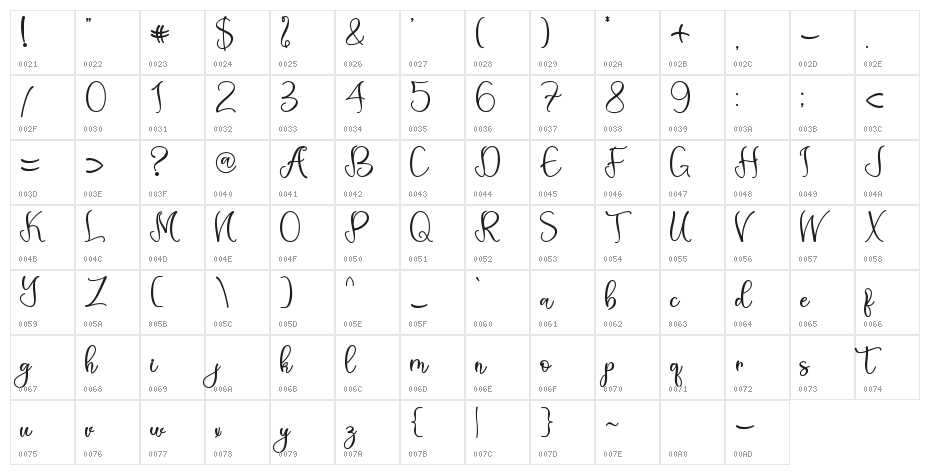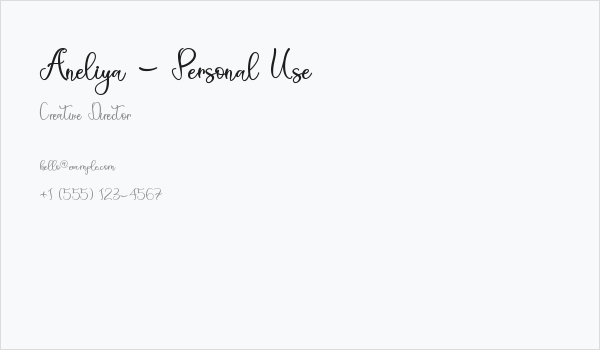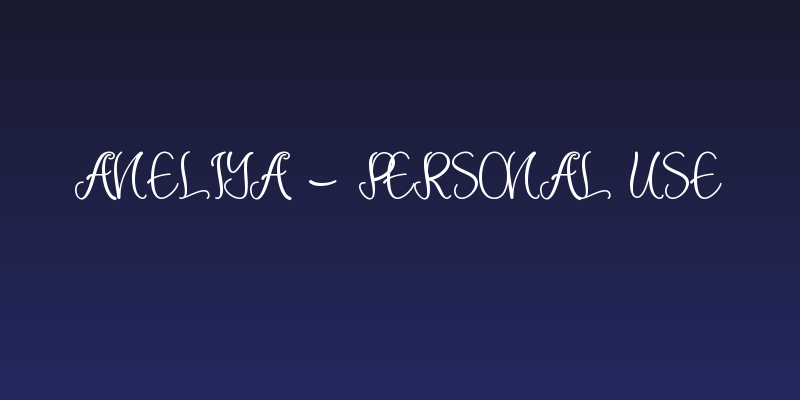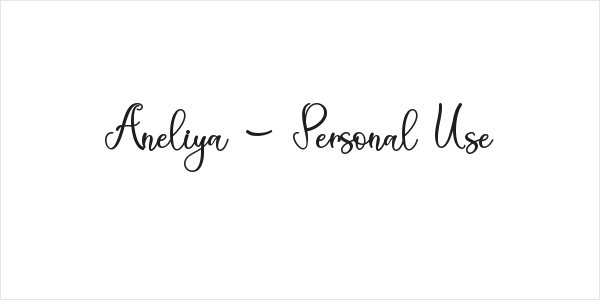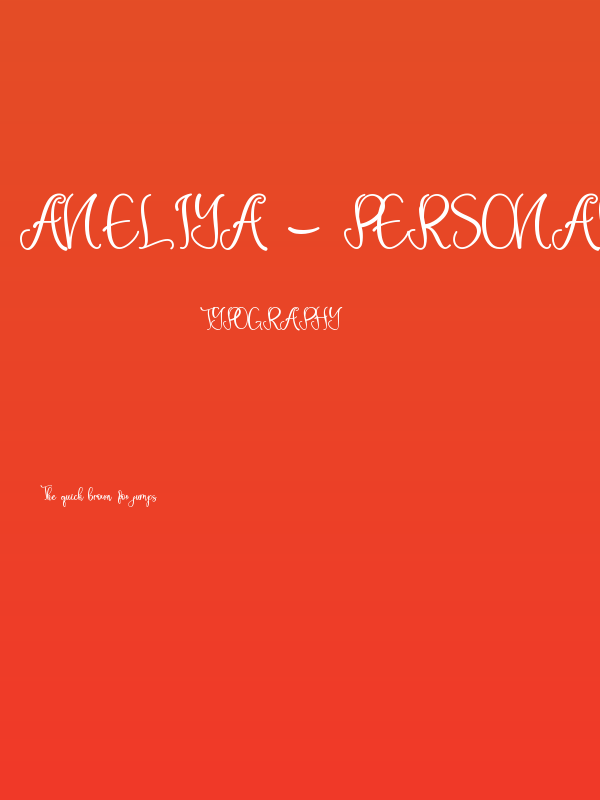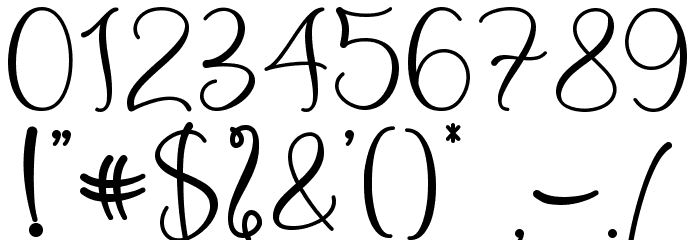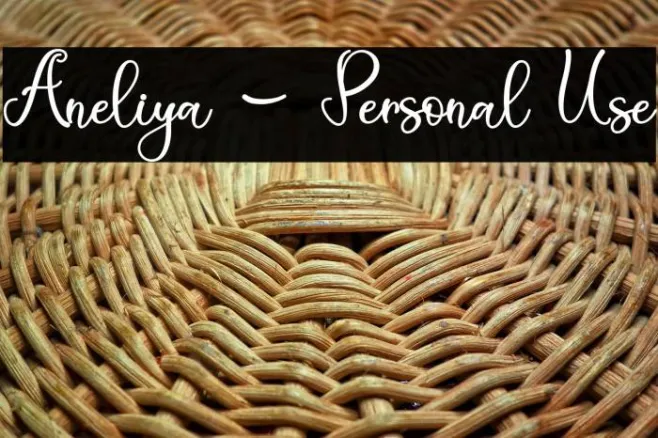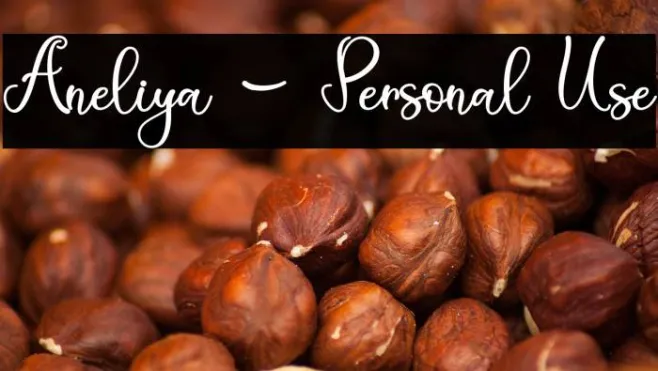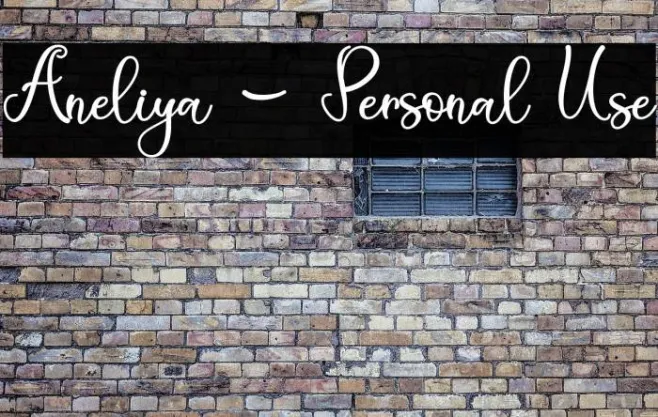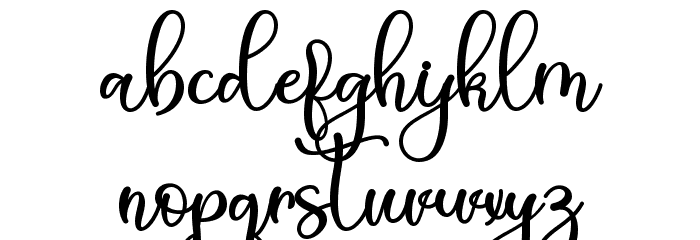
Aneliya - Personal Use Font
Aneliya - Personal Use Description
This font features a playful and elegant script style, characterized by its flowing, cursive letters. The uppercase letters are bold and slightly exaggerated, with sweeping curves and loops that give a sense of movement and grace. The lowercase letters maintain a consistent style, with smooth connections between each character, enhancing the handwritten feel. The numerals are distinct and maintain the same whimsical style, ensuring readability while adding a touch of charm. Special characters are creatively designed, fitting seamlessly with the overall aesthetic. This font exudes a personal and artistic flair, making it suitable for projects that require a touch of elegance and creativity.